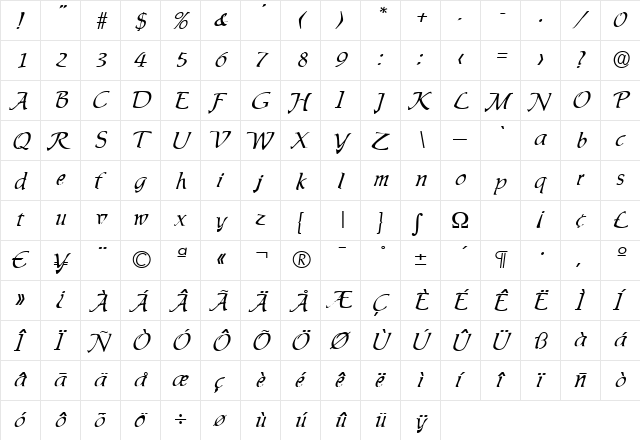
Script-I780 Regular
Design Context for Script-I780 Typeface
Script-I780 flows with the natural rhythm of handwritten lettering, making it ideal for designs that call for warmth and personal expression.